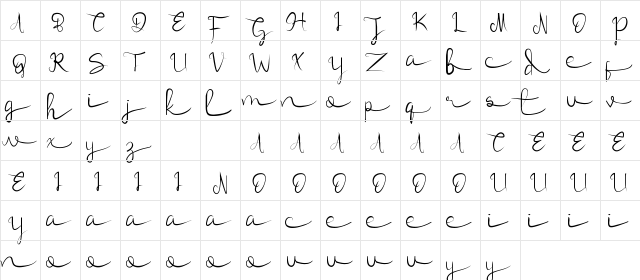
Veronica Elena Demo Regular
| Foundry | Edric Studio |
| Designer | Aghnia Nurul Yasmine & Suci Anita |
Design Context for Veronica Elena Demo Typeface
Veronica Elena Demo is a composed and adaptable typeface that performs quietly and consistently across a wide range of design contexts.